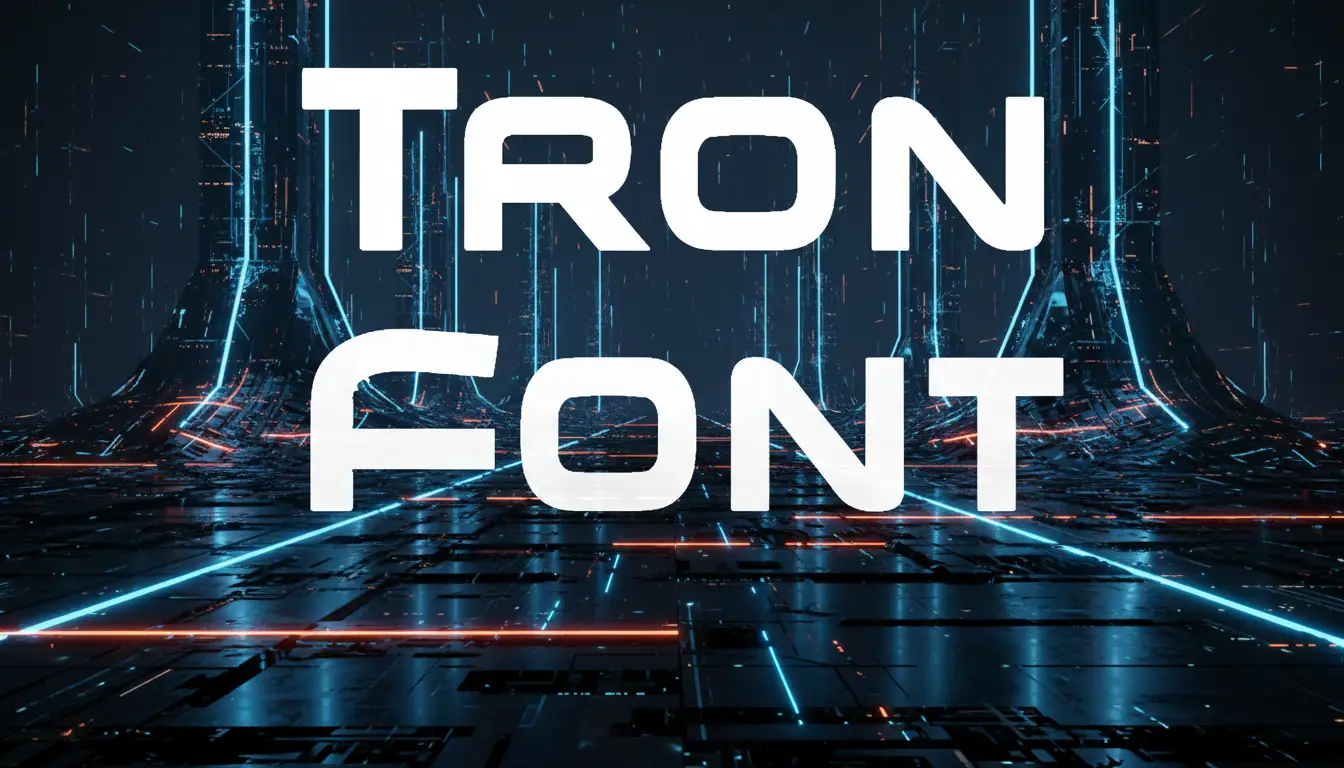
Tron Font
Tron
Tron is a techno font created by Vladimir Nikolic. Its angular, engineered shapes look right at home on screens and tech products. You can download it for free and test it with your own words in the preview above.
What You Can Type With Tron
Tron has the full alphabet in upper and lowercase. There are no numbers, so you'll need a second font for dates, prices or phone numbers. Punctuation is limited, so look at the character map if you need a specific symbol. It doesn't include accented letters such as é or ñ, which makes it an English-only font.
Where Tron Works Best
Tron is a natural fit for gaming logos, tech branding and futuristic posters. Try it on a dark background with a bright accent color for a sharp, modern look.
Does Tron support accented letters?
No. Tron has no accented letters such as é, ñ or ü, so it's best for English text.
What fonts pair well with Tron?
A simple sans serif like Roboto keeps longer text easy to read next to it.